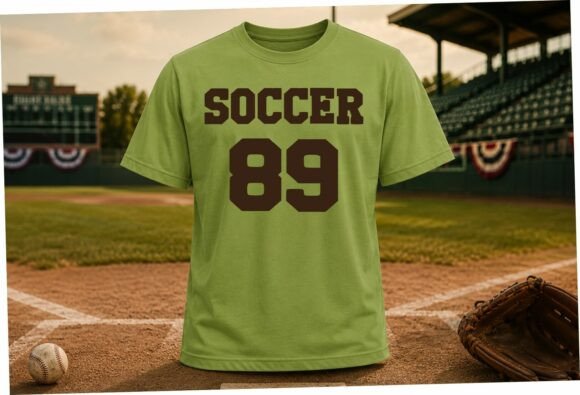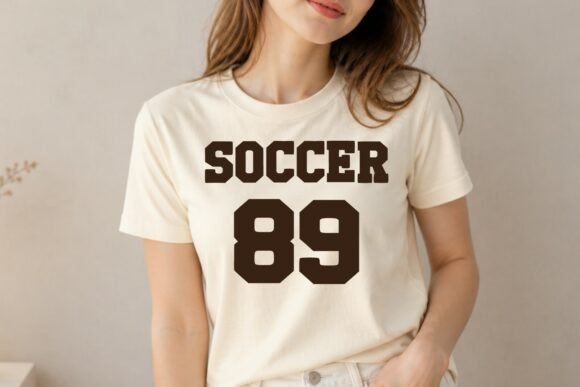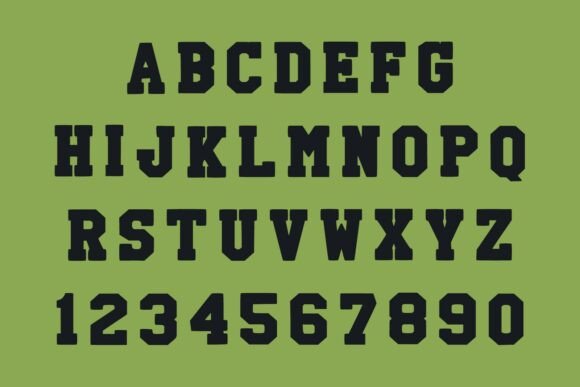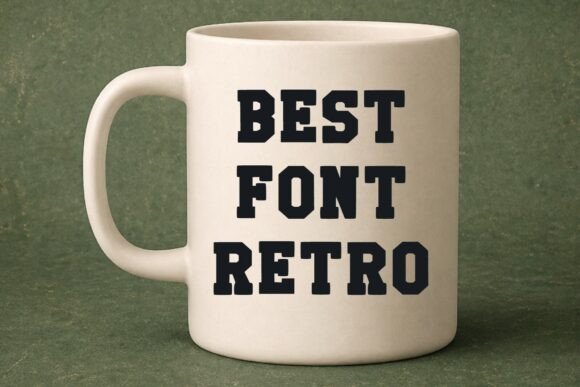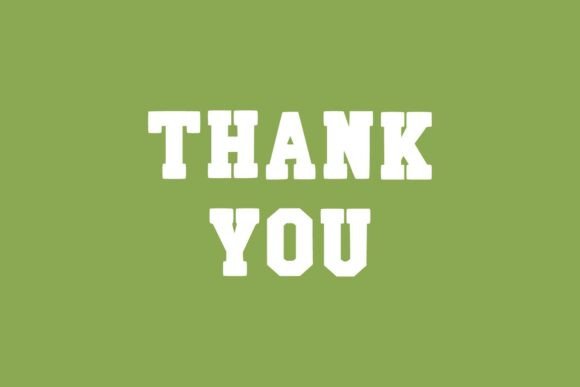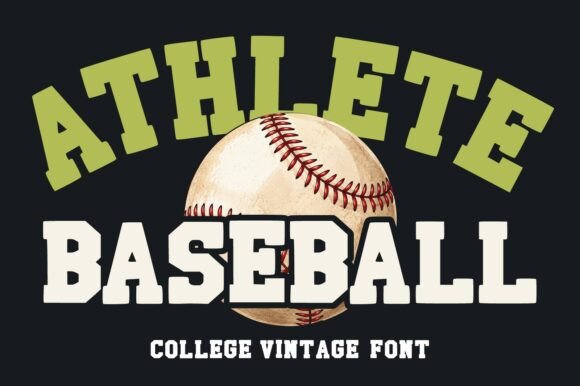
Athlete Baseball Font: A Classic and Bold Typeface for Sports-Themed Designs
Are you a designer or crafter looking for a font that captures the essence of classic American baseball? Look no further than the Athlete Baseball Font, a bold and vintage-inspired typeface that is perfect for creating eye-catching sports-themed designs. In this article, we’ll explore the features and benefits of this fantastic font, and show you how it can elevate your designs to the next level.
What is Athlete Baseball Font?
Athlete Baseball Font is a bold college vintage font that draws inspiration from classic baseball typography and retro varsity lettering. Its strong slab serif characters have a sporty and athletic style, making it an ideal choice for baseball team branding, sports posters, t-shirt designs, logos, apparel, school merchandise, retro signage, and vintage-inspired projects.
Key Features of Athlete Baseball Font
- Bold and Strong Characters: The font features bold and strong characters with a sporty and athletic style, perfect for creating eye-catching designs.
- Slab Serif Design: The slab serif design gives the font a classic and retro look, reminiscent of vintage baseball typography.
- Authentic Collegiate Look: The font has an authentic collegiate look that makes it perfect for creating sports-themed designs with a nostalgic American baseball vibe.
- Vintage-Inspired: The font is inspired by retro varsity lettering and classic baseball typography, making it ideal for vintage-inspired projects.
Uses of Athlete Baseball Font
Athlete Baseball Font is a versatile typeface that can be used for a wide range of design projects, including:
- Baseball Team Branding: Create a strong and recognizable brand identity for your baseball team with this bold and sporty font.
- Sports Posters: Design eye-catching sports posters that capture the excitement and energy of the game.
- T-Shirt Designs: Create stylish and sporty t-shirt designs that are perfect for baseball fans and enthusiasts.
- Logos and Apparel: Use the font to create logos and apparel for your sports team or organization.
- School Merchandise: Design school merchandise such as t-shirts, hats, and water bottles with a vintage-inspired look.
- Retro Signage: Create retro-style signage that captures the nostalgia of classic American baseball.
Benefits of Using Athlete Baseball Font
Using Athlete Baseball Font for your design projects offers several benefits, including:
- Unique and Authentic Look: The font has a unique and authentic look that sets it apart from other fonts.
- Easily Readable: The bold and strong characters make the font easily readable, even at small sizes.
- Versatile: The font can be used for a wide range of design projects, from sports posters to logos and apparel.
- Nostalgic Vibe: The font captures the nostalgia of classic American baseball, making it perfect for vintage-inspired projects.
Tips for Using Athlete Baseball Font
Here are some tips for using Athlete Baseball Font in your design projects:
- Use it Boldly: The font is designed to be used boldly, so don’t be afraid to make it big and eye-catching.
- Pair it with Other Fonts: Pair the font with other fonts to create a unique and interesting contrast.
- Experiment with Colors: Experiment with different colors to find the perfect combination that captures the spirit of your design.
Athlete Baseball Font is a bold and vintage-inspired typeface that is perfect for creating eye-catching sports-themed designs. With its strong slab serif characters and authentic collegiate look, it’s ideal for baseball team branding, sports posters, t-shirt designs, logos, apparel, school merchandise, retro signage, and vintage-inspired projects. Whether you’re a designer or crafter, this font is sure to elevate your designs to the next level.